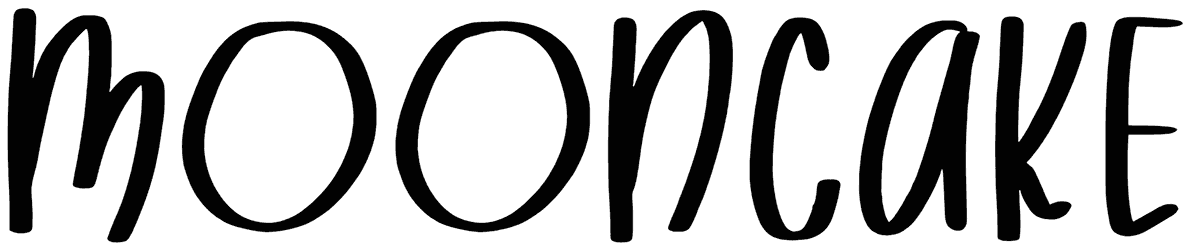
Mooncake Font
Would you like minimal designs with a sweet vibe? Mooncake as a doodle font can be exactly one of your choices to bring this mood to your words. This handwritten font doesn’t support all of the lowercase and capitals and…
Would you like minimal designs with a sweet vibe? Mooncake as a doodle font can be exactly one of your choices to bring this mood to your words. This handwritten font doesn’t support all of the lowercase and capitals and has a limited number of punctuation, but would be an entertaining show for many items, from covers to titles.